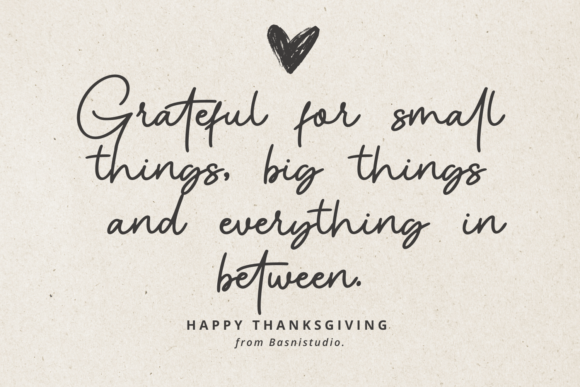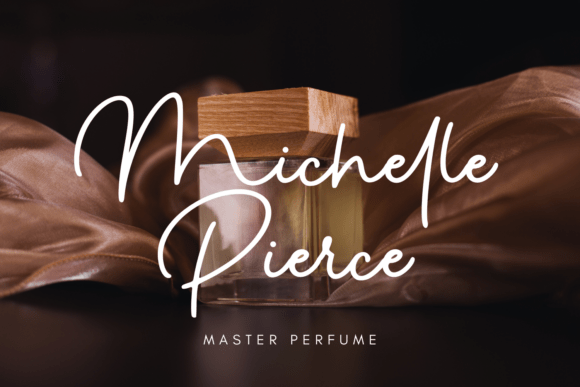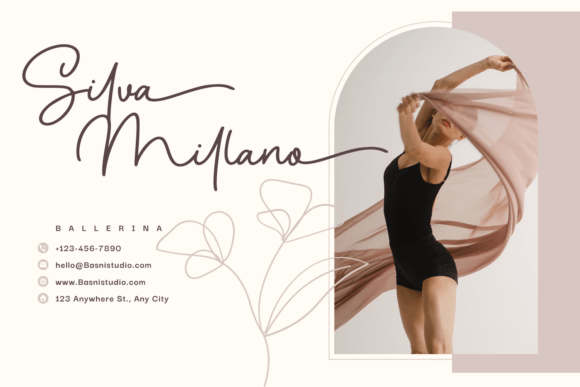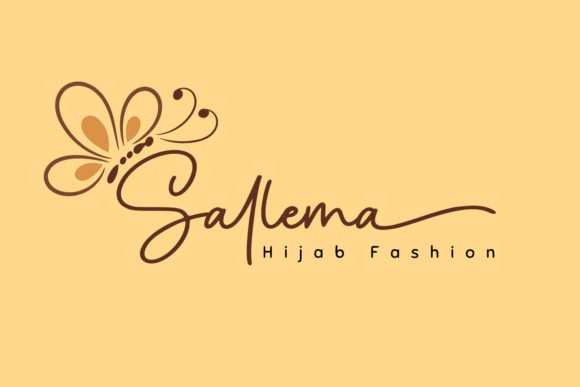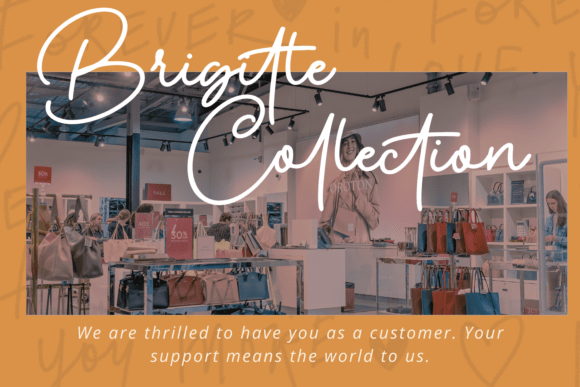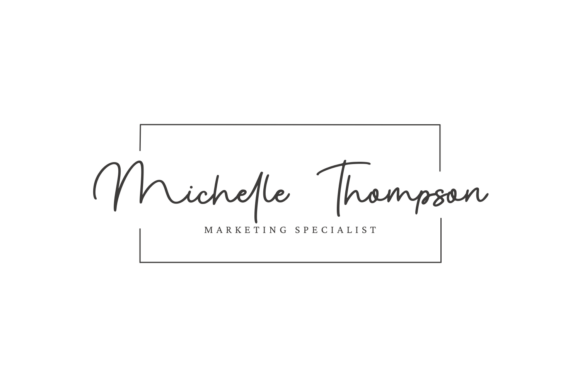
Introducing Calligain Font: The Perfect Handwritten Typeface for Your Creative Projects
Are you searching for a font that can bring warmth, personality, and authenticity to your designs? Look no further than Calligain, a beautifully crafted handwritten typeface that can elevate your projects to the next level. Whether you’re a designer, craftsperson, or entrepreneur, Calligain is the perfect choice for adding a natural, personal touch to your branding, social media, invitations, packaging, and more.
The Power of Handwritten Fonts
In today’s digital age, it’s easy to get lost in a sea of generic, sans-serif fonts. But if you want to stand out from the crowd and create a lasting impression, you need a font that speaks to your audience on a personal level. Handwritten fonts like Calligain are the perfect solution. With their unique, human touch, they can add a level of warmth and personality to your designs that’s hard to replicate with more traditional fonts.
What Makes Calligain Special?
So, what sets Calligain apart from other handwritten fonts on the market? For starters, its beautifully crafted letterforms are designed to be both elegant and approachable. With its flowing lines and subtle imperfections, Calligain has a natural, organic feel that’s perfect for creating a sense of authenticity and connection with your audience.
But Calligain is more than just a pretty font – it’s also incredibly versatile. Whether you’re designing a logo, creating social media graphics, or crafting invitations and packaging, Calligain is the perfect choice. Its clear, legible letterforms make it easy to read, even at small sizes, while its unique personality ensures that your designs will stand out from the crowd.
Perfect for Branding and Identity
When it comes to building a strong brand identity, every detail matters – including your font choice. Calligain is the perfect choice for designers and entrepreneurs looking to create a powerful, memorable brand. Its unique personality and natural, human touch make it perfect for creating a sense of connection and authenticity with your audience.
Whether you’re designing a logo, creating business cards, or crafting a website, Calligain is the perfect choice. Its elegant, refined letterforms make it perfect for creating a professional, high-end look, while its approachable, friendly feel ensures that your brand will resonate with your target audience.
One of the best things about Calligain is its endless creative possibilities. Whether you’re a designer, craftsperson, or entrepreneur, this versatile font can be used in a wide range of projects, from:
- Branding and identity design
- Social media graphics and ads
- Invitations and event planning
- Logos and wordmarks
Get Creative with Calligain
If you’re looking for a font that can bring warmth, personality, and authenticity to your projects, look no further than Calligain. With its beautifully crafted handwritten letterforms and endless creative possibilities, this versatile font is perfect for designers, craftspersons, and entrepreneurs looking to elevate their designs to the next level.
Key Features of Calligain Font
- Beautifully crafted handwritten letterforms
- Natural, organic feel
- Perfect for branding, social media, invitations, packaging, and more
- Clear, legible letterforms
- Unique personality and authenticity
- Endless creative possibilities
In conclusion, Calligain is a must-have font for any designer, craftsperson, or entrepreneur looking to add a personal touch to their projects. Its unique personality, natural feel, and endless creative possibilities make it the perfect choice for anyone looking to elevate their designs to the next level.